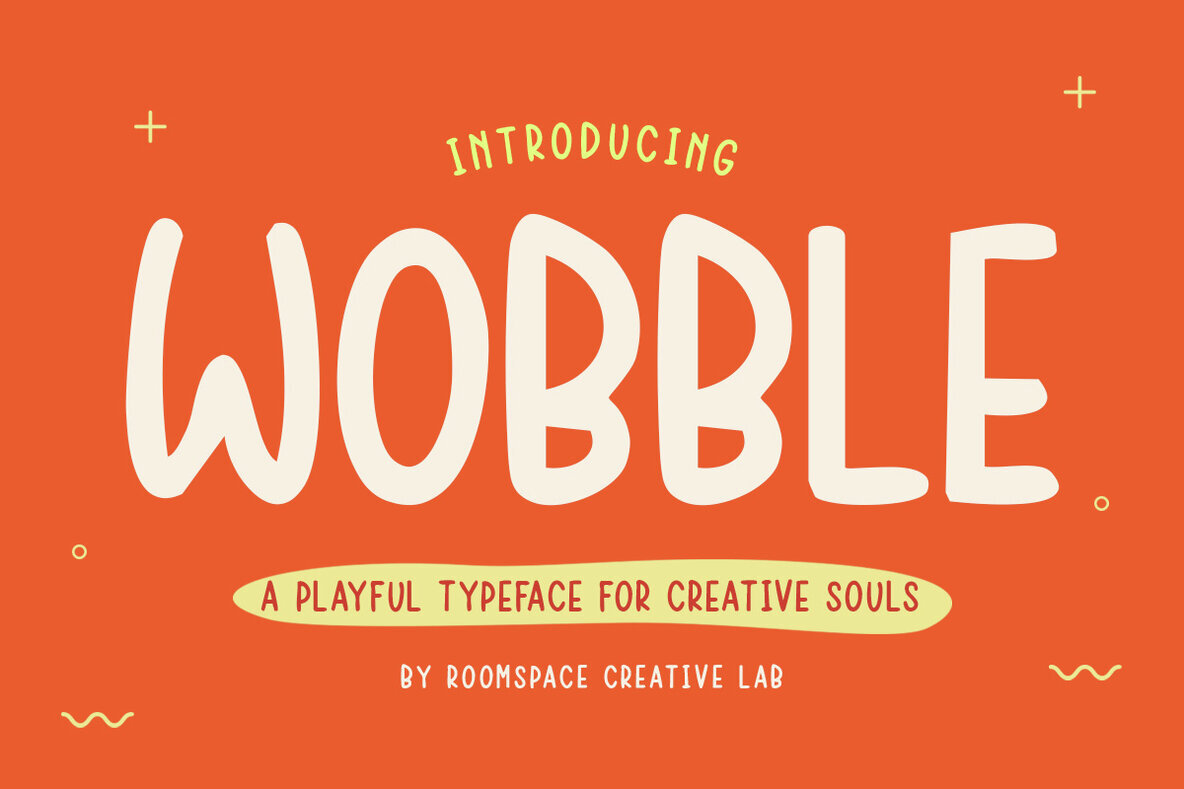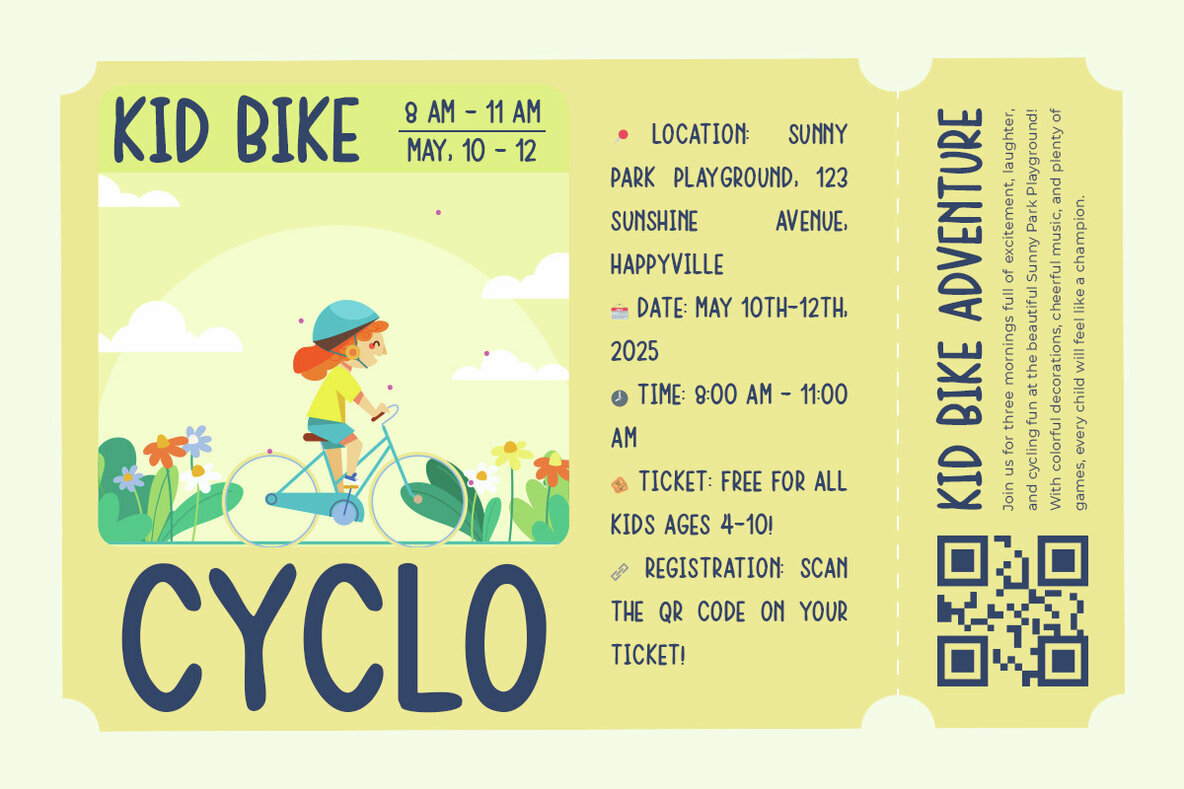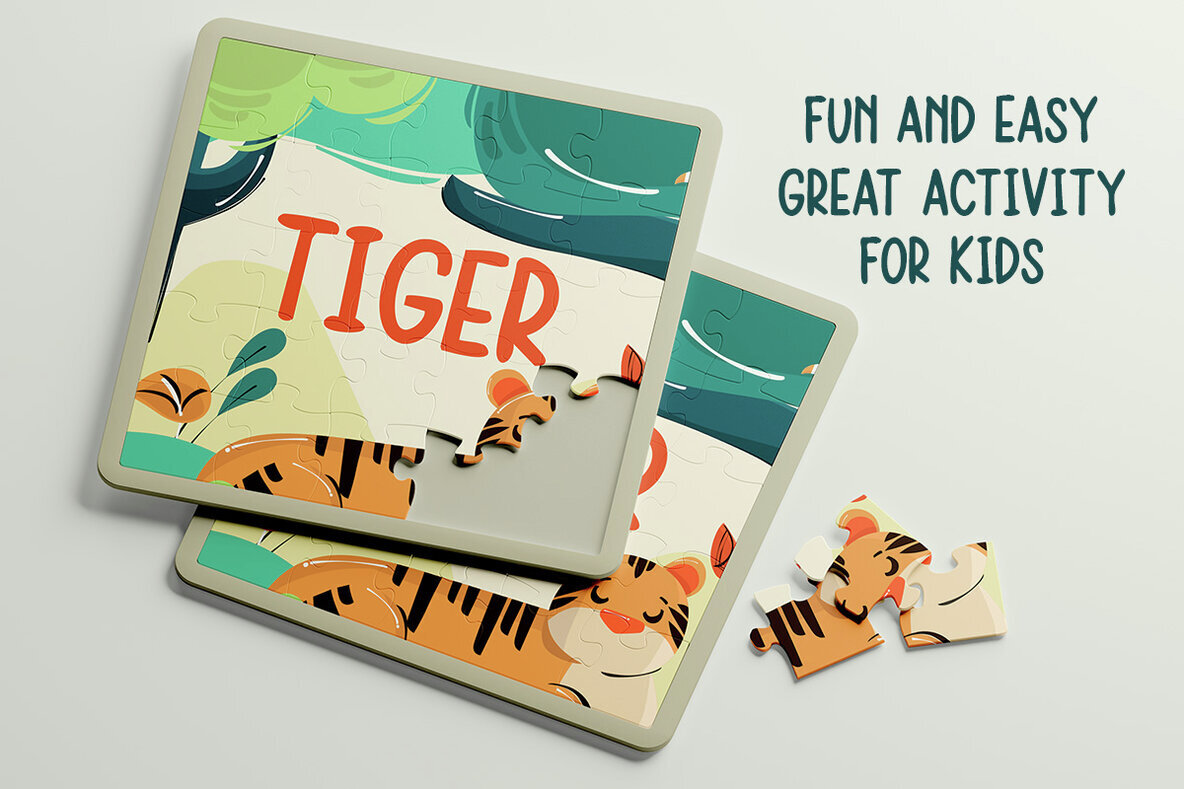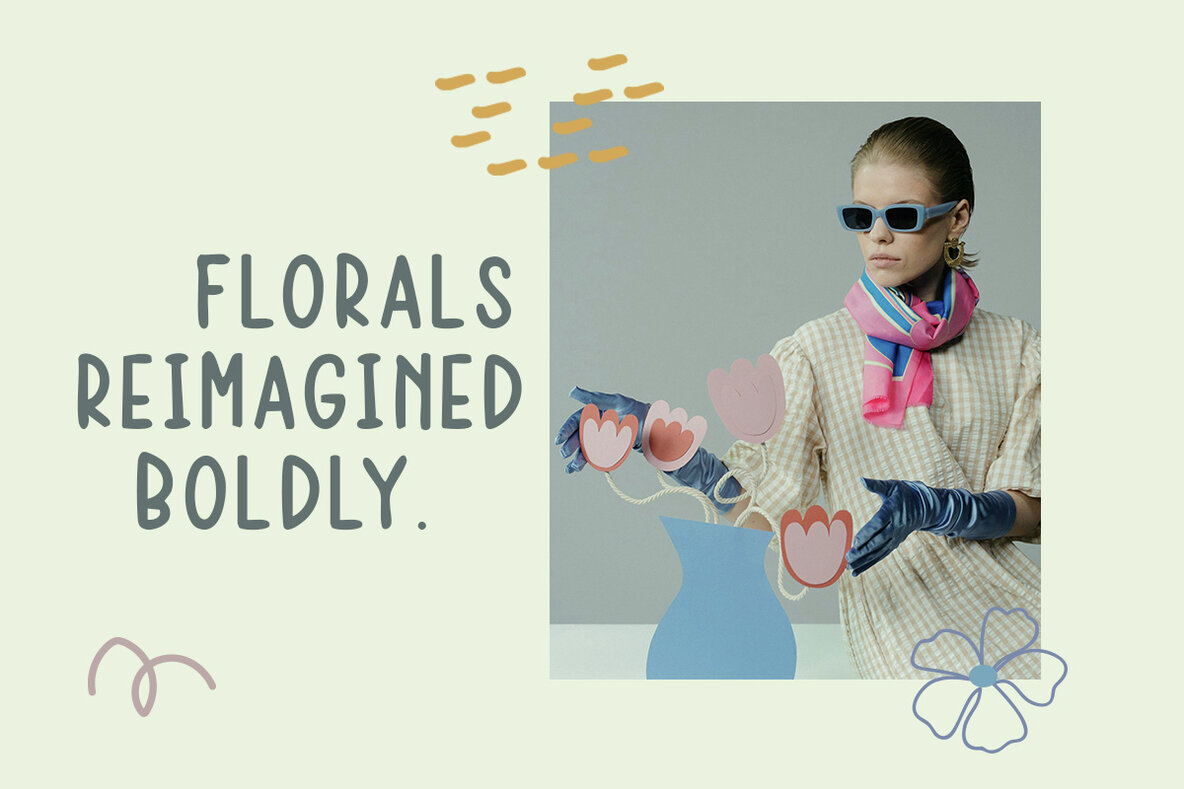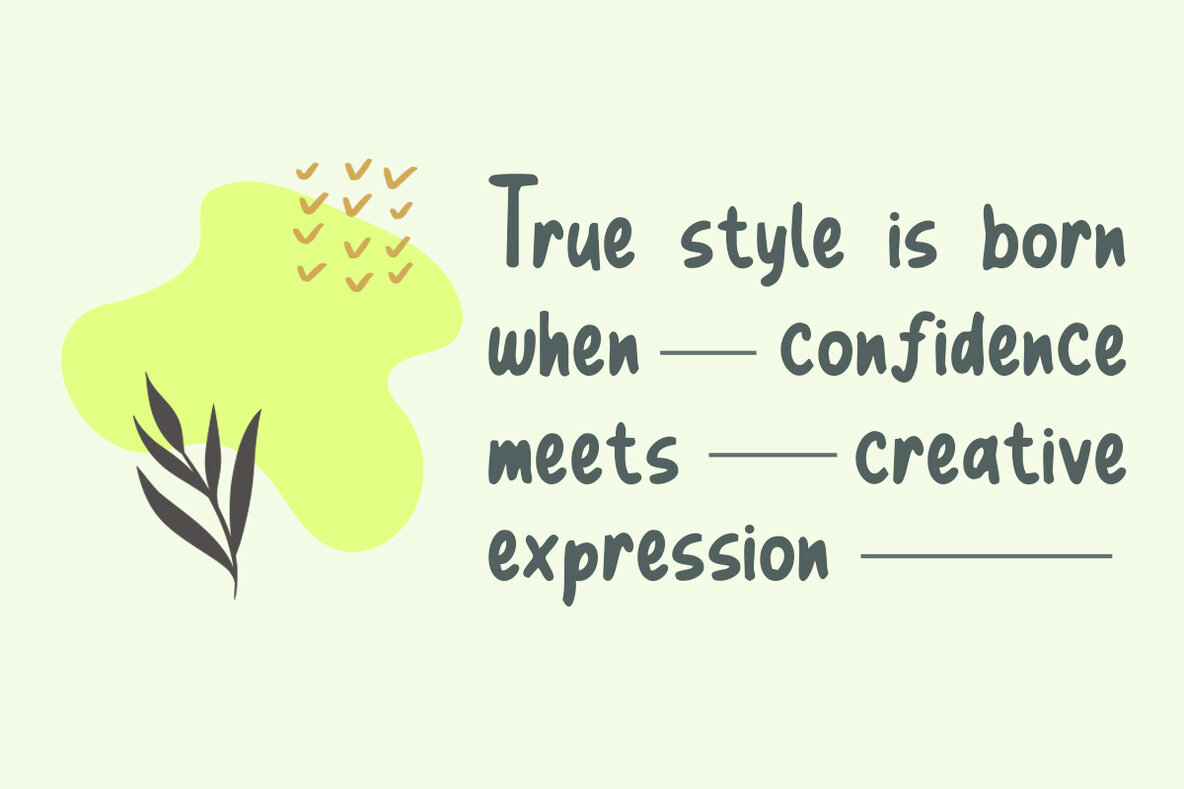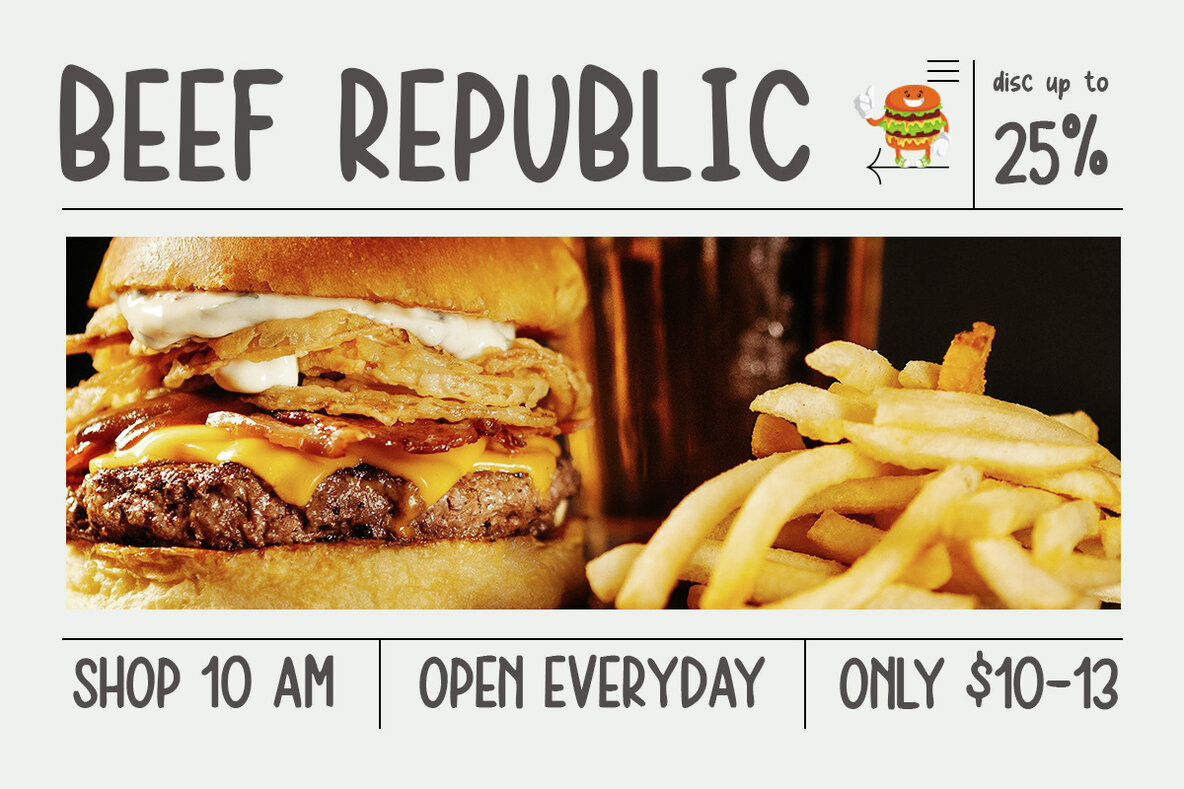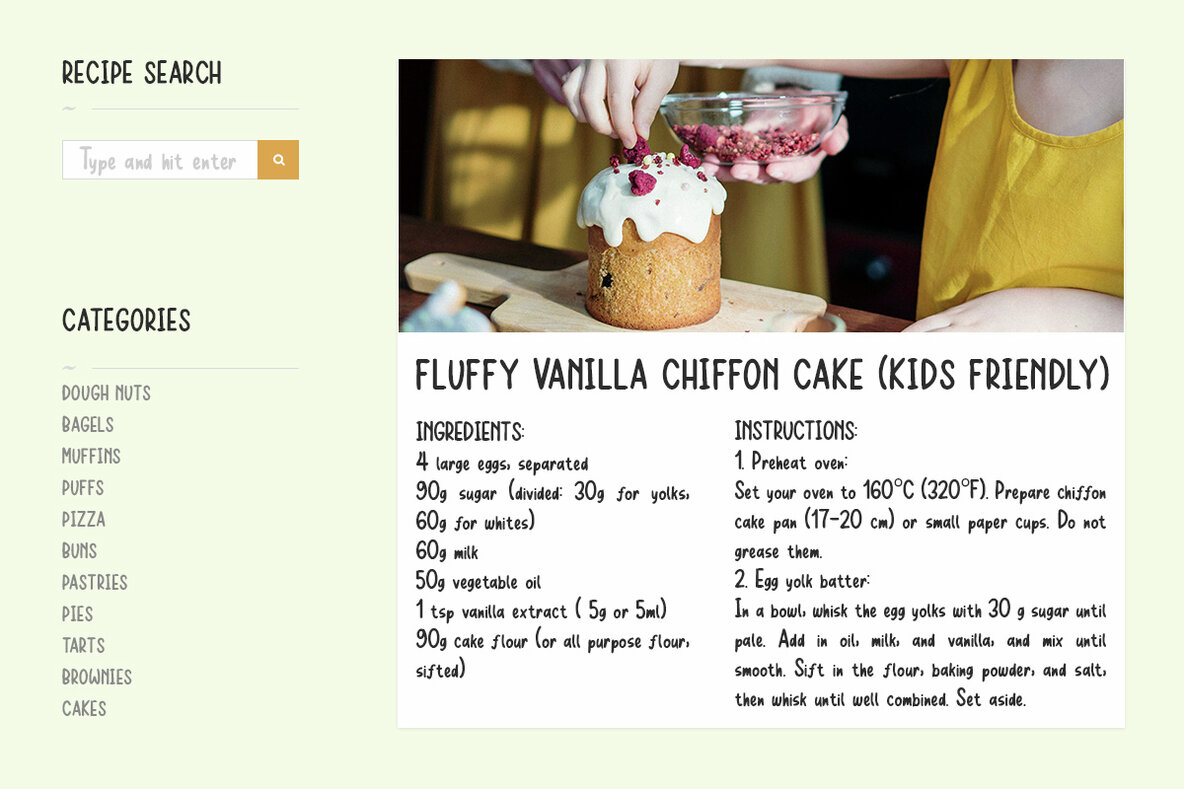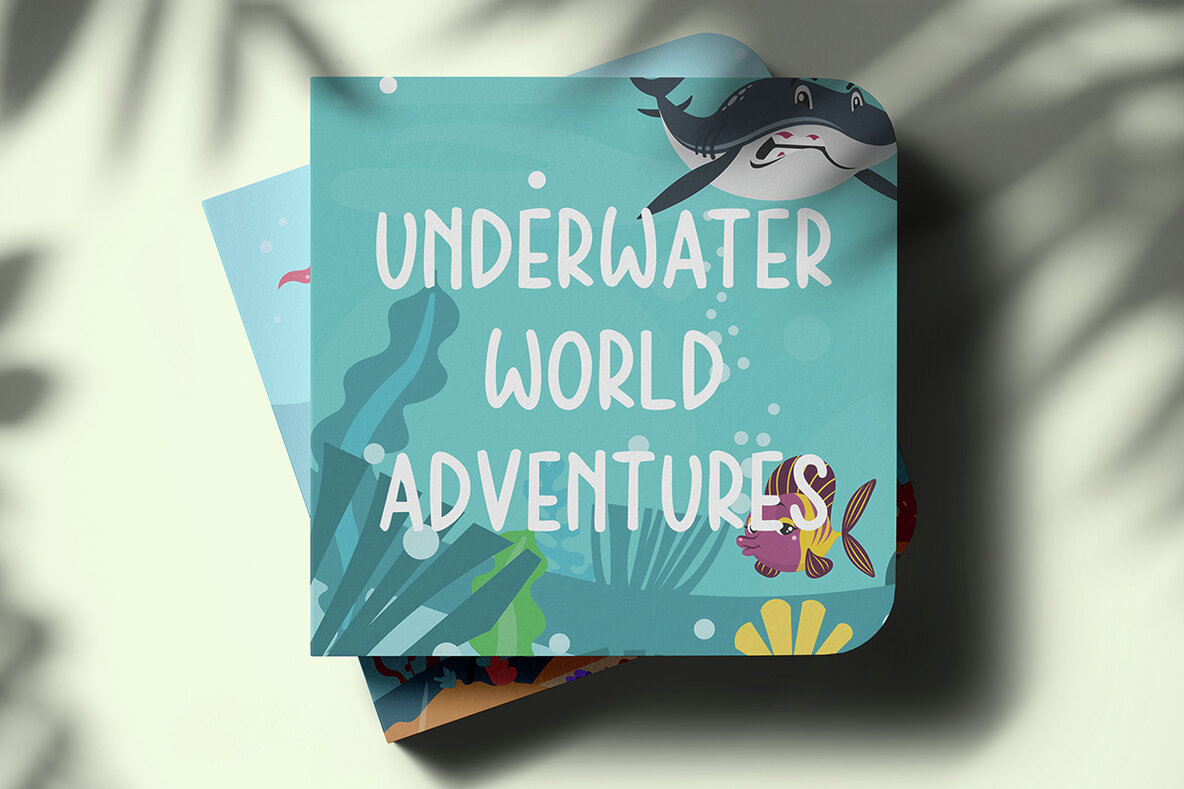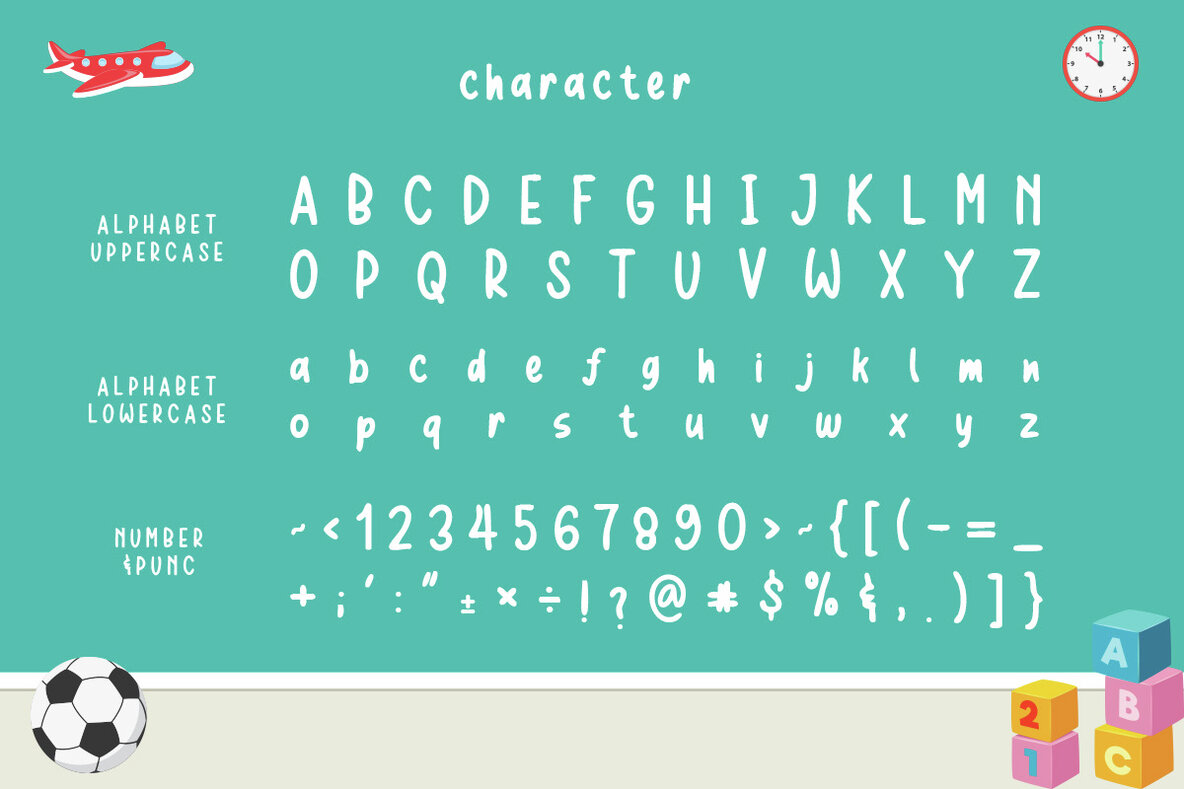
Wooble Font
Wobble Regular
Wobble is a delightful, handwritten typeface that infuses charm and creativity into your projects. Perfectly suited for kid-centric branding, lively packaging, and engaging editorial layouts, this font adds a light-hearted, expressive flair to any design. Its softly irregular strokes and handcrafted structure ensure a warm and approachable feel, all while maintaining a neat and organized look. This unique blend is what gives Wobble its distinctive appeal. Designed with rounded forms and a bouncy rhythm, Wobble’s letterforms reflect the whimsical imperfection of authentic handwriting. This makes it an ideal choice for projects requiring emotional warmth and playful spontaneity, such as children's books, educational materials, creative menus, boutique packaging, and seasonal campaigns. Whether featured on a digital banner or a printed toy box, Wobble communicates a human touch that is sure to attract a family-friendly audience.Wobble Typeface: Joyful Expression in Every Stroke